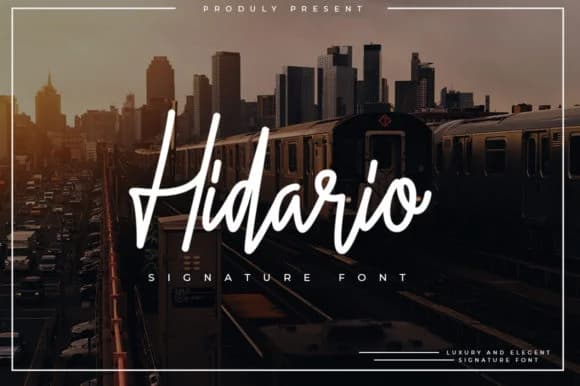
Hidario Font radiates refinement and a touch of old-world romance. Created by indotitas, this signature script brings the kind of elegance that reads as intentional luxury without trending toward either overly modern or dated.
What makes it truly versatile is how it plays with other elements. Pastry box labels, wedding invitation suites, boutique cosmetics packaging, and high-end stationery benefit from the balanced curves and readable flow. Each letterform carries enough personality to anchor your brand identity on its own, yet remains cooperative when paired with photography, geometric elements, or clean backgrounds. Its handwritten quality feels authentic rather than gimmicky, and it holds up surprisingly well at smaller sizes without losing character. Small caps and stylistic alternates are baked in, so you can vary how letters appear across your work and keep each application feeling fresh.
Pair Hidario with a minimal, geometric sans-serif (something with clean, restrained proportions) to create dynamic contrast. Reserve this script for moments where your brand needs to speak with warmth and personality, using the sans-serif for headlines and body text. The interplay between flowing script curves and structured letterforms draws the viewer's eye through each design with natural rhythm. Discover it on Creative Fabrica and explore how it transforms your brand's visual voice.
Hidario Font is a script font that shines as a display or heading face. Pair it with a clean sans-serif or serif font for body text β the contrast creates a clear hierarchy while the two styles stay balanced and easy to read.